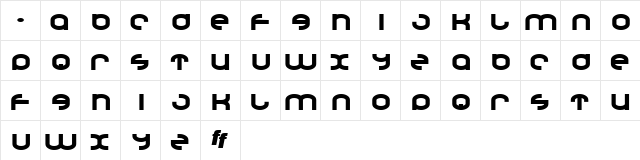
Dronecat Regular
Design Context for Dronecat Typeface
Dronecat is a composed and adaptable typeface that performs quietly and consistently across a wide range of design contexts.